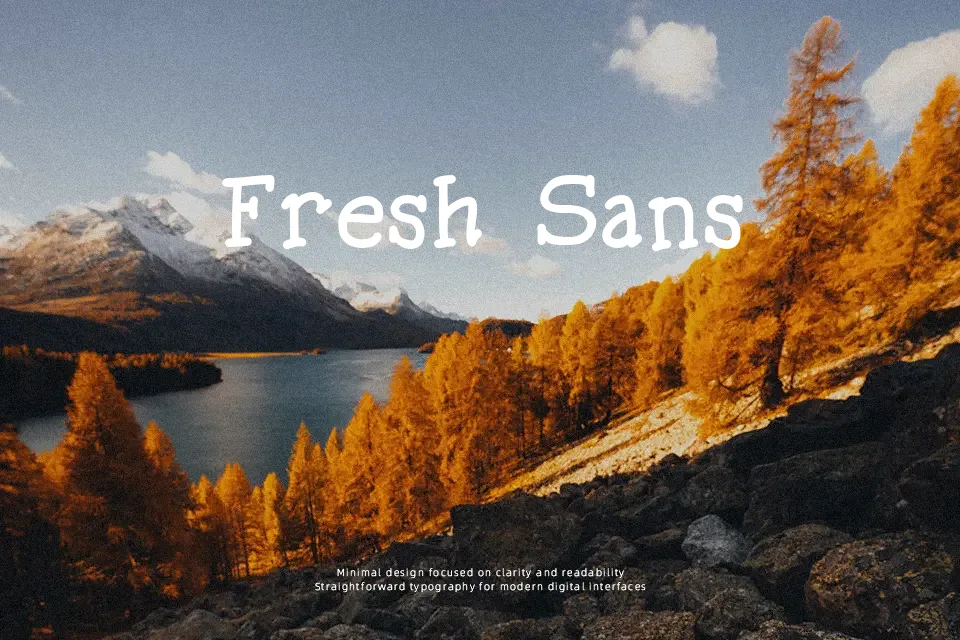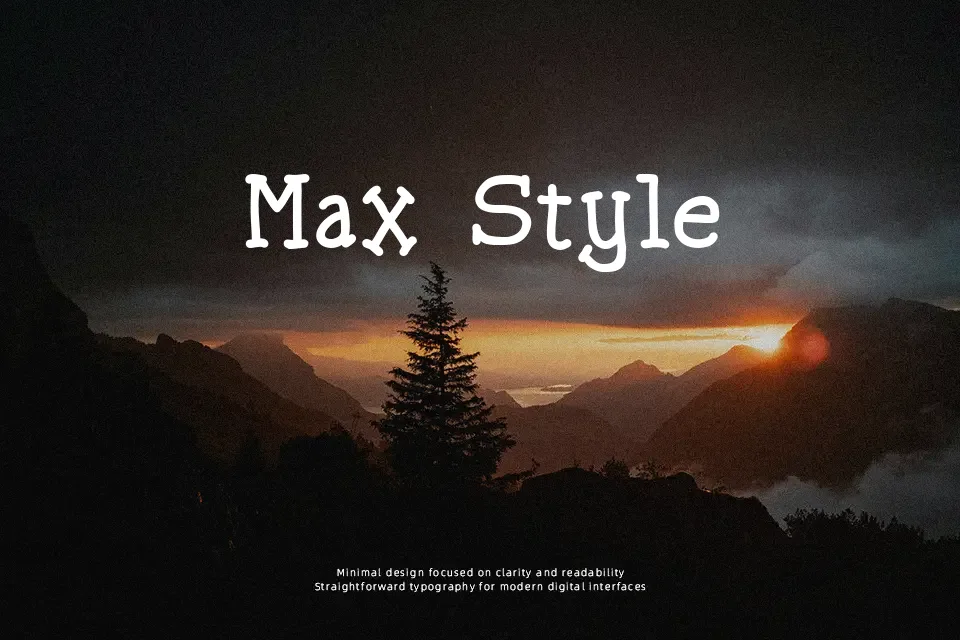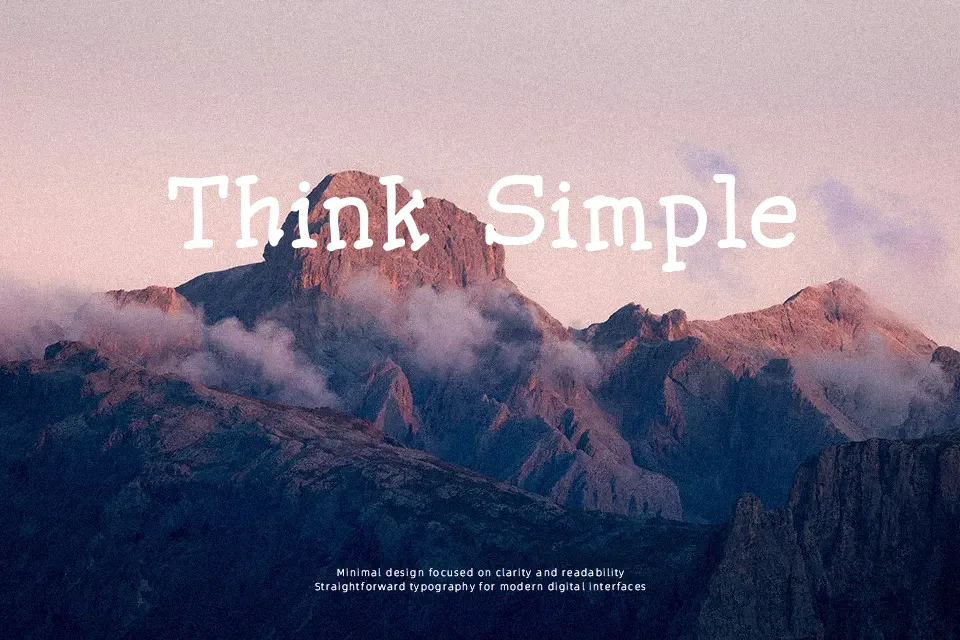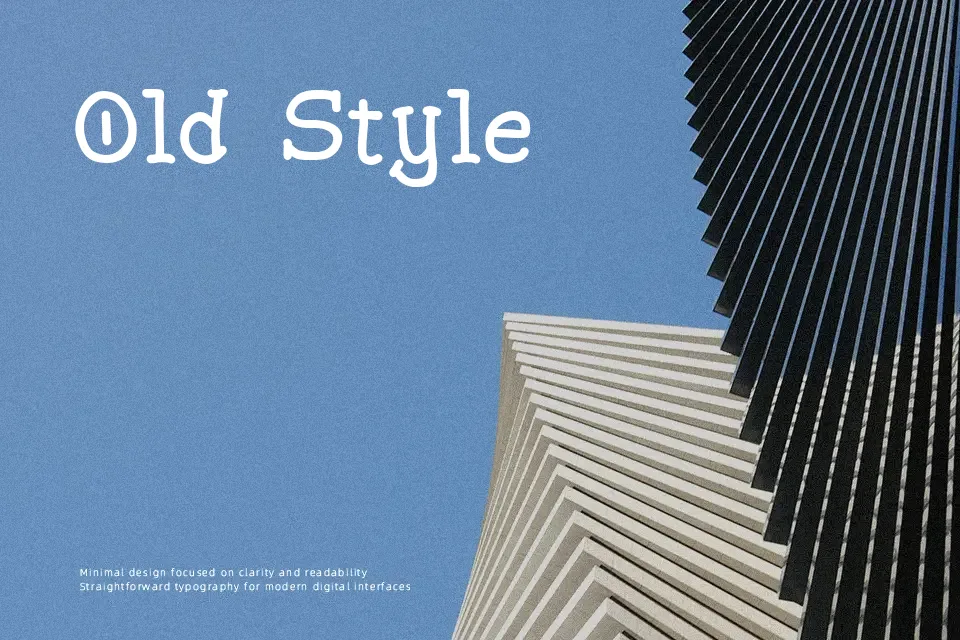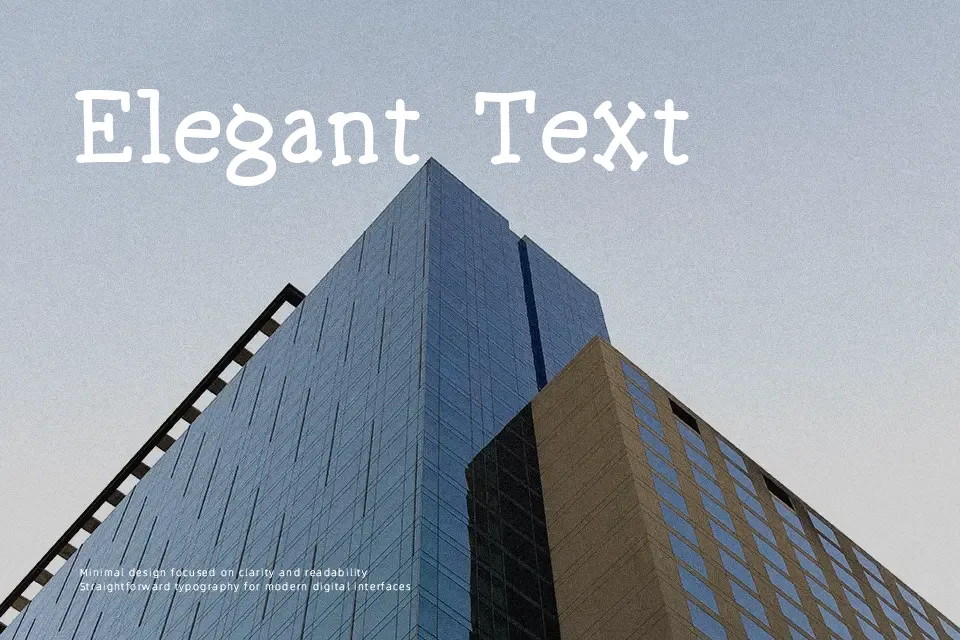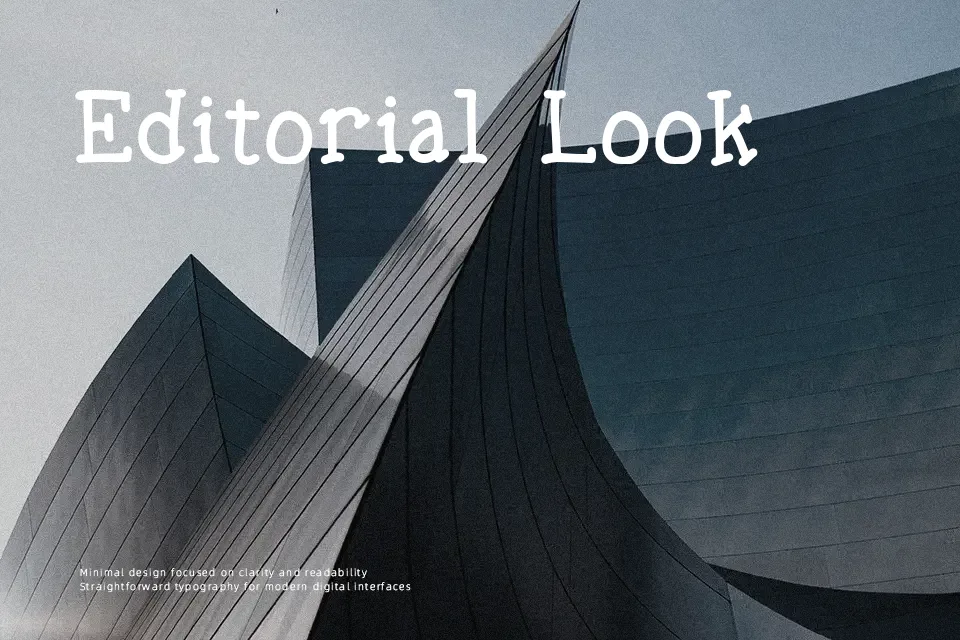
Spellstone Font
Spellstone Font uses irregular, decorative letterforms with a hand-drawn appearance and varied contours. The strokes appear sturdy rather than delicate, while the character proportions and spacing create a loose, expressive rhythm in short lines of text. Its uppercase forms make the strongest impression in titles, poster copy, and game-related graphics, where the details remain visible. The typeface is easier to read at larger display sizes, but its uneven structure can make small text and continuous reading feel crowded. It works best when given room around the letters rather than compressed into dense layouts.
Best For: fantasy game titles,film poster headlines,themed event signage,book cover titles
Perfect for film, gaming, and headline, with a creative and decorative style.